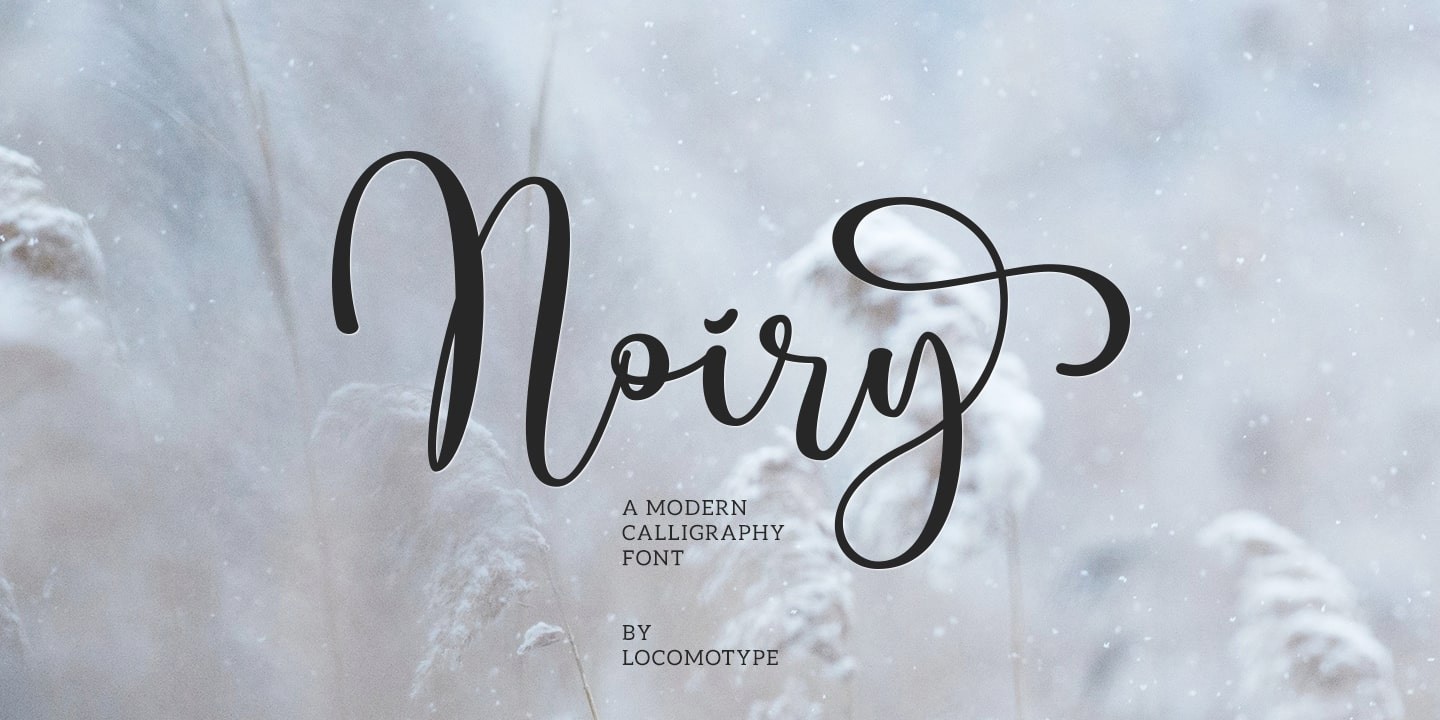
Noiry Font
Noiry Font excels in film noir tribute productions, detective thriller promotions, vintage crime drama materials, mysterious nightclub branding, classic detective novel covers, atmospheric jazz club signage, shadowy bar establishments, noir-inspired fashion campaigns, dark mystery entertainment venues, and sophisticated urban nightlife experiences. This atmospheric typeface brings film noir elegance and mysterious sophistication to any noir-themed design project.
Noiry Font is exciting because it captures the shadowy elegance and mysterious atmosphere of classic film noir, featuring dramatic letterforms that seem to emerge from the smoky shadows of 1940s nightclubs and rain-soaked city streets. Its noir character instantly conveys sophisticated mystery, urban atmosphere, and the timeless allure of classic detective stories and noir cinema that defined an entire genre of sophisticated entertainment.
Noiry Font family includes Light, Regular, Medium, and Bold weights with noir alternates, shadowy flourishes, atmospheric ornamental elements, and mystery symbols that enhance the classic film aesthetic, providing noir designers with sophisticated tools for creating typography that celebrates the elegant darkness and mysterious sophistication of classic noir entertainment and urban nightlife culture.
Noir entertainment designers appreciate Noiry Font for its exceptional ability to convey atmospheric mystery and sophisticated darkness through dramatically crafted letterforms. The font's shadowy character and noir details create immediate associations with detective fiction, jazz-age nightlife, and the sophisticated urban atmosphere that made film noir a defining artistic movement in cinema and popular culture.
The design philosophy behind Noiry Font celebrates the artistic sophistication of film noir and the atmospheric storytelling that elevated crime drama to the level of high art through sophisticated visual style and mysterious narrative complexity, making it particularly effective for entertainment venues, film productions, and sophisticated nightlife establishments that appreciate classic noir aesthetics. Creative teams working on noir projects find this font essential.
Whether used for noir film festivals, sophisticated cocktail lounges, or mystery entertainment experiences, Noiry Font delivers the perfect combination of atmospheric sophistication and noir authenticity. Its mysterious appeal and classic elegance make it an indispensable choice for entertainment brands that celebrate noir culture, create atmospheric experiences, and honor the sophisticated artistic legacy of classic film noir and detective fiction.